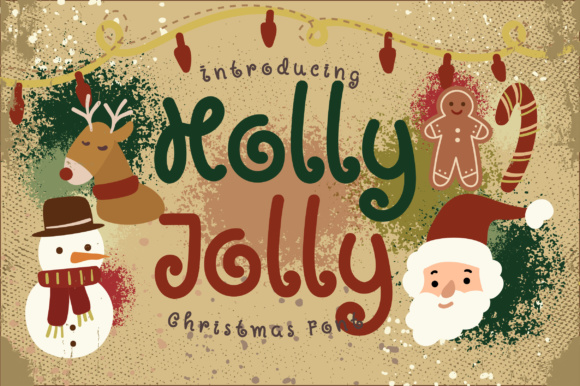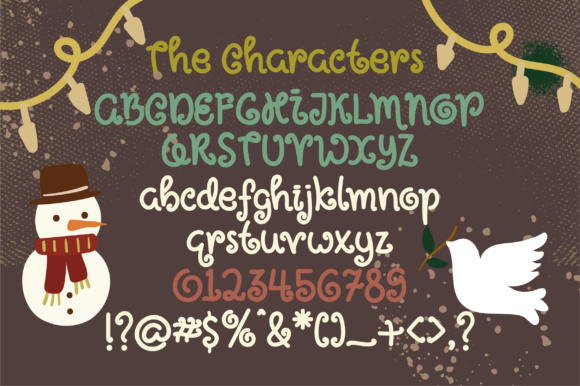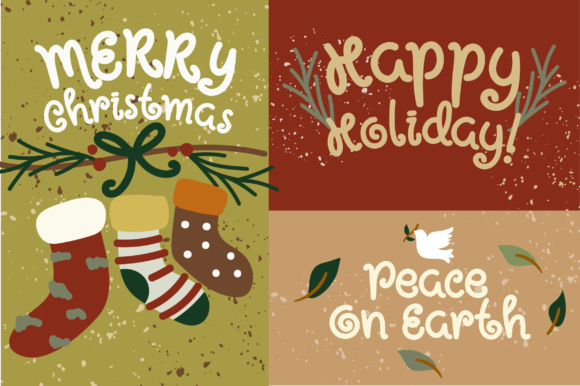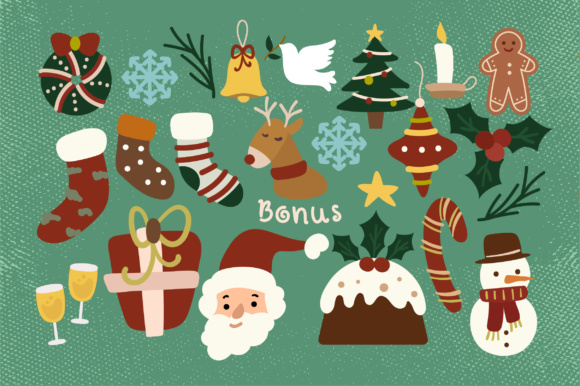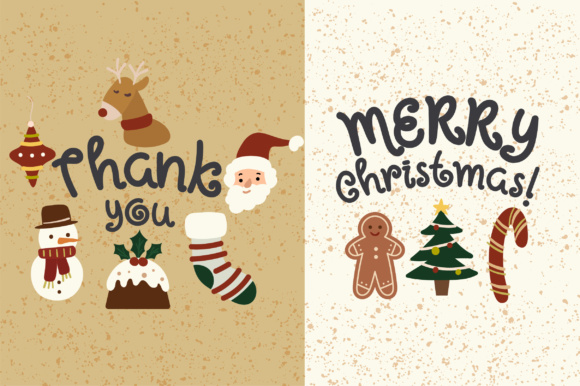
Holly Jolly Font
About Holly Jolly Font
The Holly Jolly is a fun and whimsical font. It’s the perfect Christmas font. Included as a bonus are 21 cute Christmas icons.